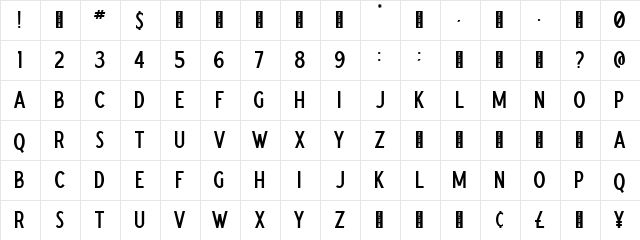
Cemoro Regular
Design Context for Cemoro Typeface
Cemoro offers clean, dependable letterforms without strong stylistic allegiance, making it a practical choice for designers who need flexibility.
Pro Tip: Use Cemoro in both headline and body roles to test its range before committing to a single application.